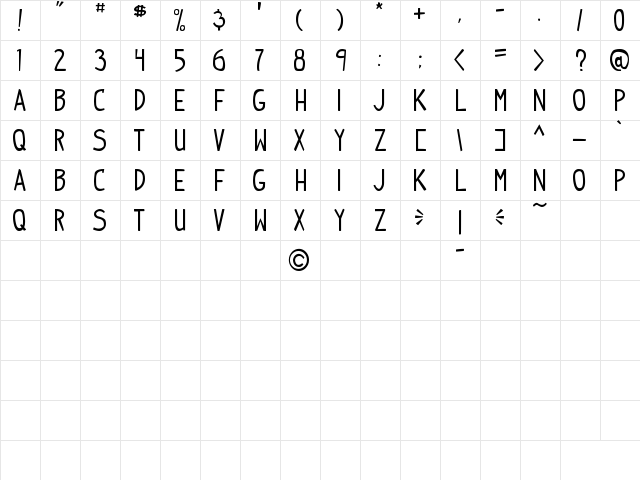
Indy Pimp Regular
| Designer | Andeh Pinkard |
Design Context for Indy Pimp Typeface
Indy Pimp offers clean, dependable letterforms without strong stylistic allegiance, making it a practical choice for designers who need flexibility.